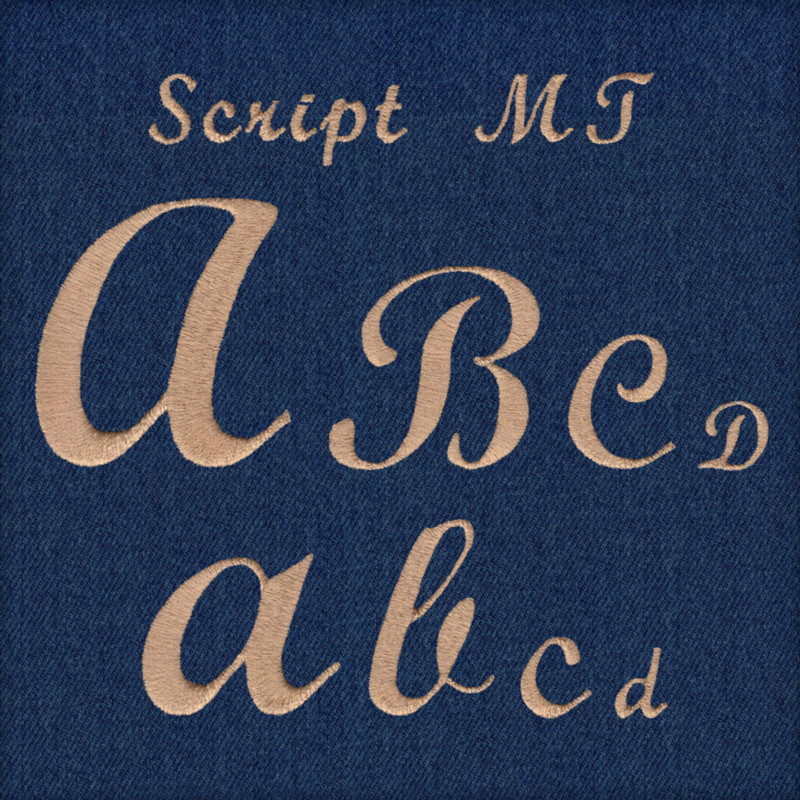
561 Script MT Satin Font
Script MT Satin Font comes in 0.5", 1", 1.5" and 2" heights based on the capital "A". All sizes are included in purchase price. All sizes finished in Satin stitch. Includes uppercase letters, lowercase letters, numbers and six punctuation marks.